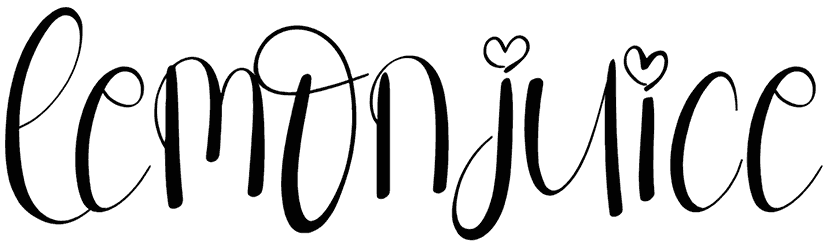
Lemonjuice Font
Have you ever wondered about making a different header for wedding invitations, postcards, album covers, cosmetic packaging, or other graphics? Well, here all of your needs, including inventing or designing displays, would be fulfilled for free.
A cute font name Lemonjuice comes across to help you run a typography that guarantees your thriving. However, this masterpiece offers no uppercase letters; you can count on it for an informal and cozy arrangement. Just bear in mind it may suffer from unreadability.